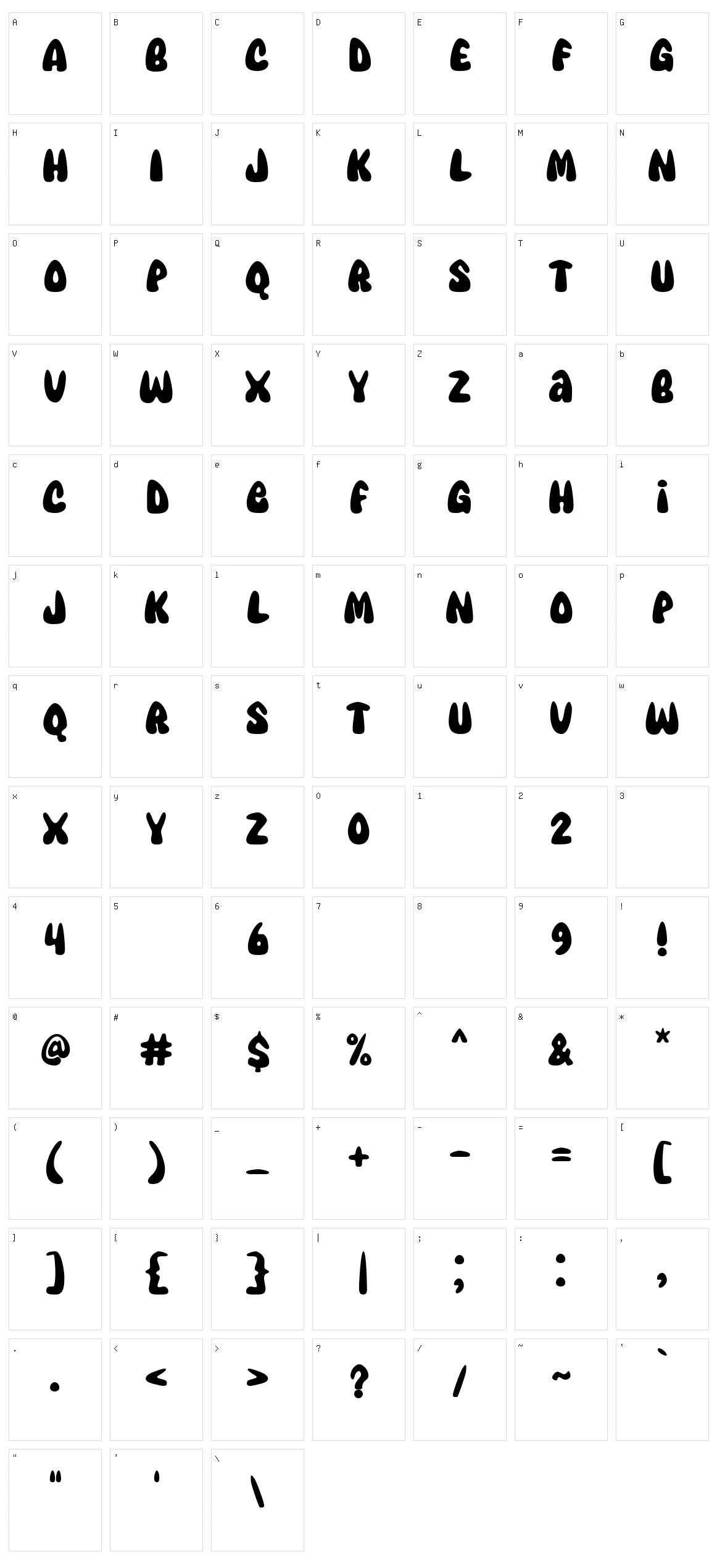
Super Avocado: A Font Fiesta of Fun and Fancy!
Introducing Super Avocado, the font that's like a perfectly ripe avocado – creamy, delicious, and bursting with flavor (and personality)!
Super Avocado is more than just a font – it's an experience! So, go ahead, indulge in its fancy shape and playful charm. Your designs (and your audience) will thank you! More